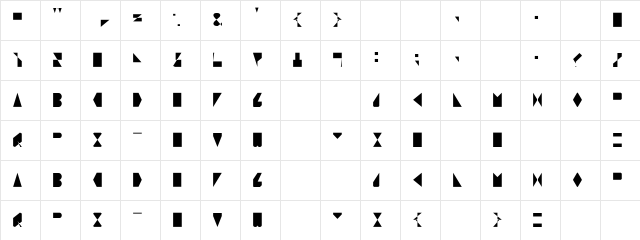
OCRFont Regular
Design Context for OCRFont
OCRFont is a composed and adaptable typeface that performs quietly and consistently across a wide range of design contexts.